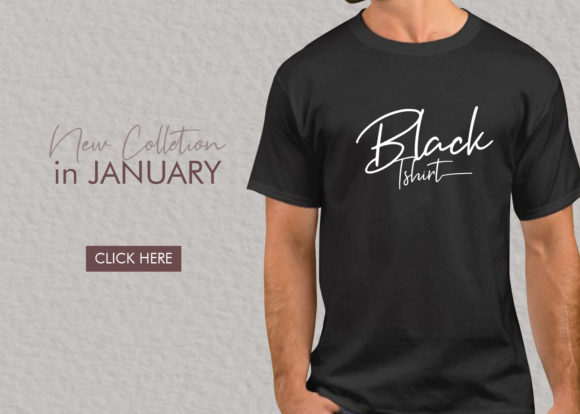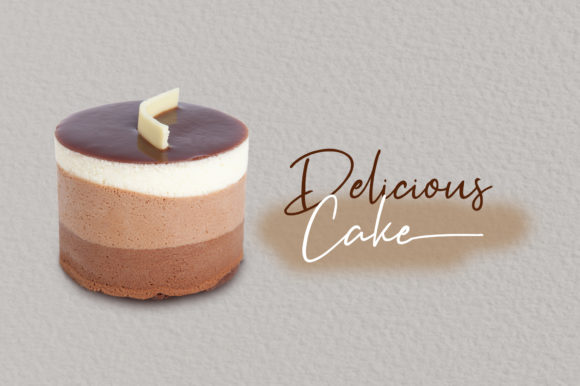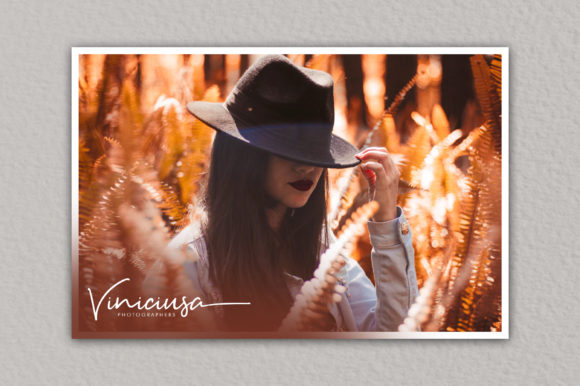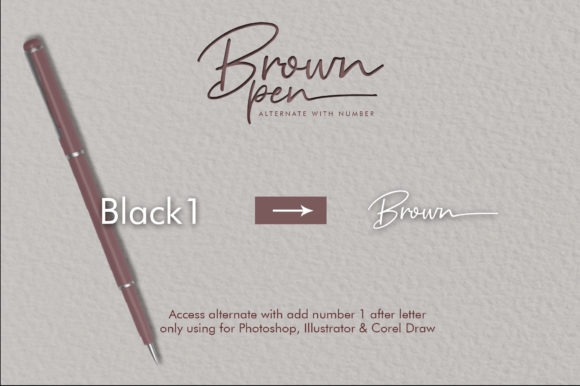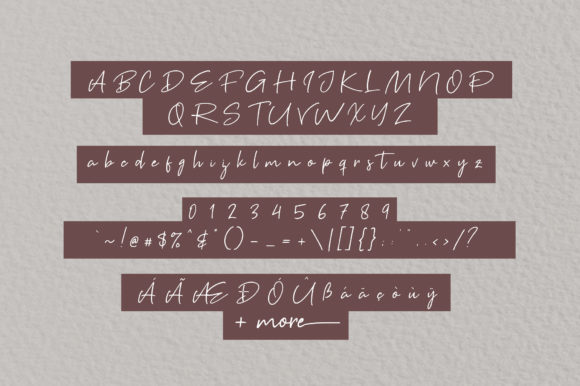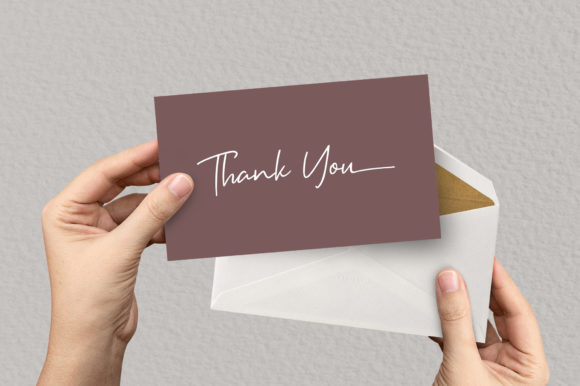
Brown Pen Script Font: Elevate Your Designs with a Fresh and Unique Touch
Are you tired of using the same old fonts in your designs? Look no further! The Brown Pen Script Font is here to revolutionize your creative projects with its fresh and unique style. This beautiful script font is perfect for designers, crafters, and anyone looking to add a touch of elegance and fun to their work.
What is the Brown Pen Script Font?
The Brown Pen Script Font is a carefully crafted script font that exudes a sense of fun and sophistication. Its unique feel makes it an excellent choice for a wide range of design projects, from logos and posters to wedding invitations and more. With its elegant and playful vibe, this font is sure to capture the attention of your audience and leave a lasting impression.
Key Features of the Brown Pen Script Font
- Fresh and Unique Style: The Brown Pen Script Font boasts a distinctive style that sets it apart from other script fonts.
- Fun and Elegant Feel: This font combines fun and elegance, making it perfect for a variety of design projects.
- High Versatility: Use it to create logos, posters, wedding invitations, and much more!
Uses of the Brown Pen Script Font
The Brown Pen Script Font is incredibly versatile and can be used in a multitude of design projects. Here are some ideas to get you started:
- Logo Design: Create a memorable logo for your business or brand with this unique font.
- Poster Design: Design eye-catching posters for events, promotions, or advertisements.
- Wedding Invitations: Add a touch of elegance and romance to your wedding invitations and save-the-date cards.
- Social Media Graphics: Use the Brown Pen Script Font to create engaging social media graphics, quotes, and posts.
- Stationery and Packaging: Elevate your brand’s stationery and packaging with this beautiful script font.
Why Choose the Brown Pen Script Font?
With so many fonts available, why choose the Brown Pen Script Font? Here are a few reasons:
- Unique Style: This font offers a fresh and unique style that will make your designs stand out.
- Excellent for Branding: Create a consistent brand image with this versatile font.
The Brown Pen Script Font is a fantastic addition to any designer’s collection. Its unique and elegant style makes it perfect for a wide range of projects, from logos and posters to wedding invitations and more. With its high versatility and excellent value (including a bonus font), this script font is sure to elevate your designs and help you stand out from the crowd.